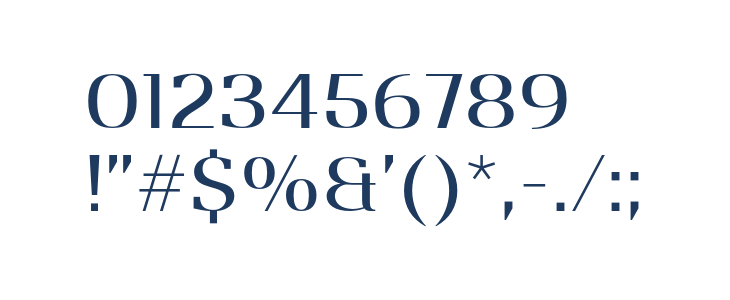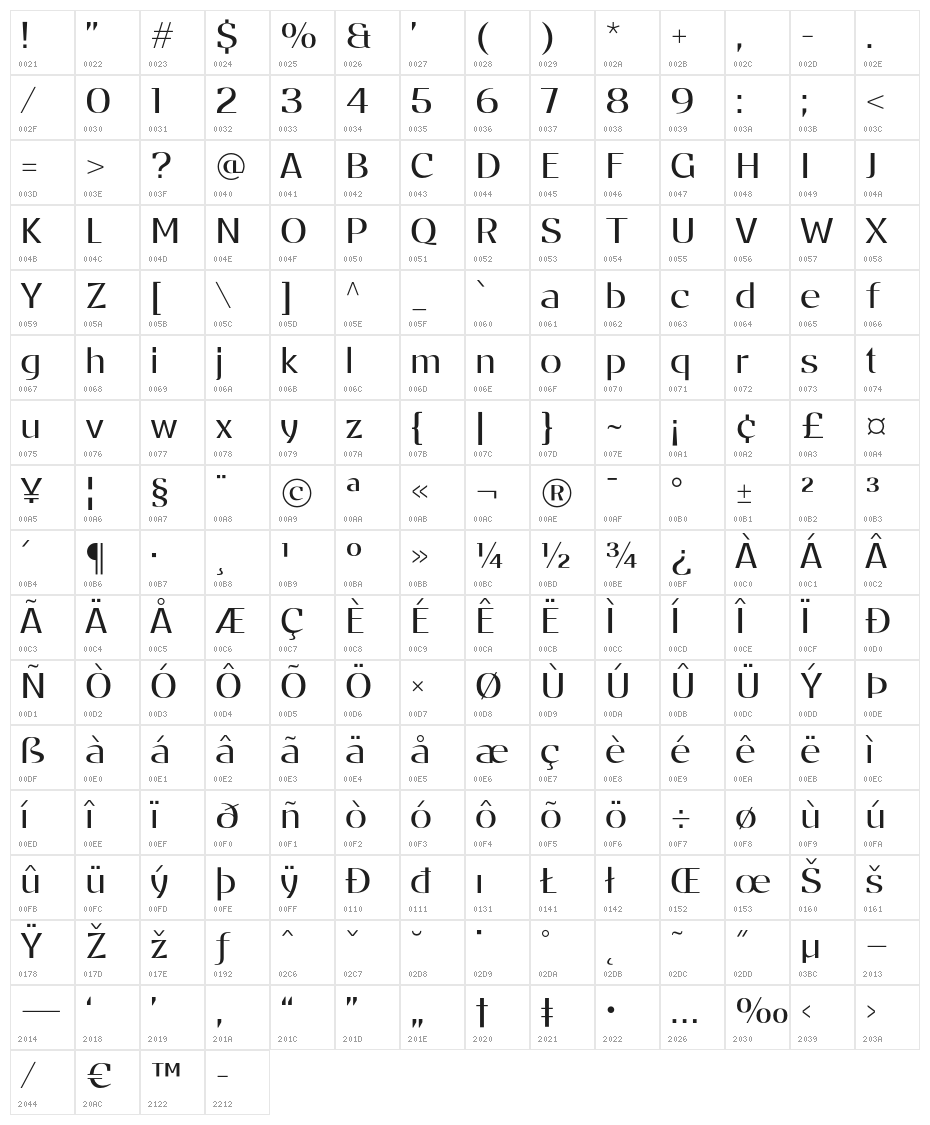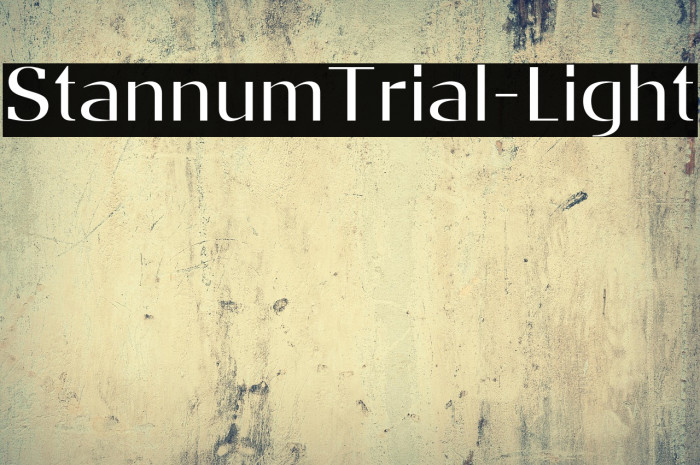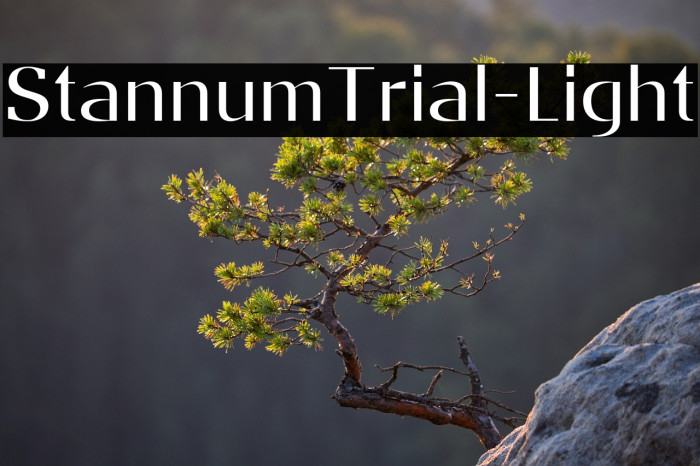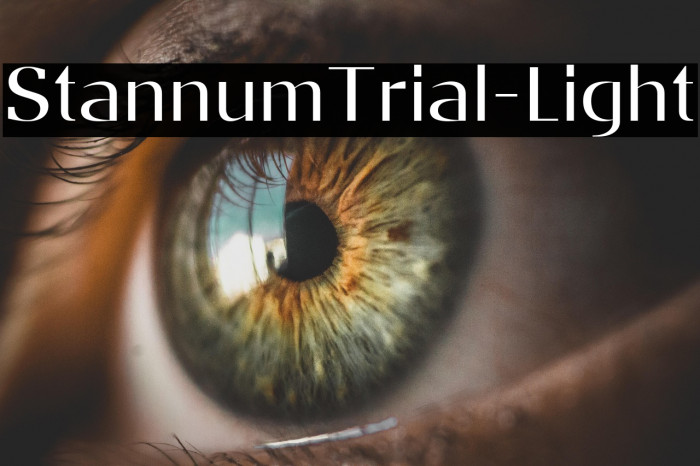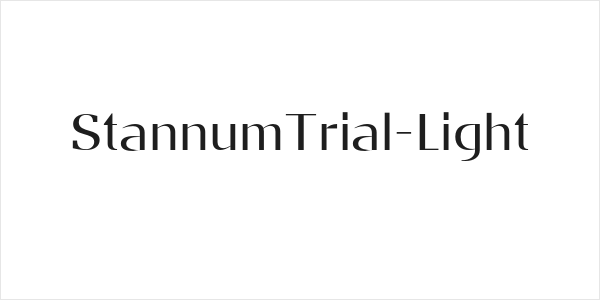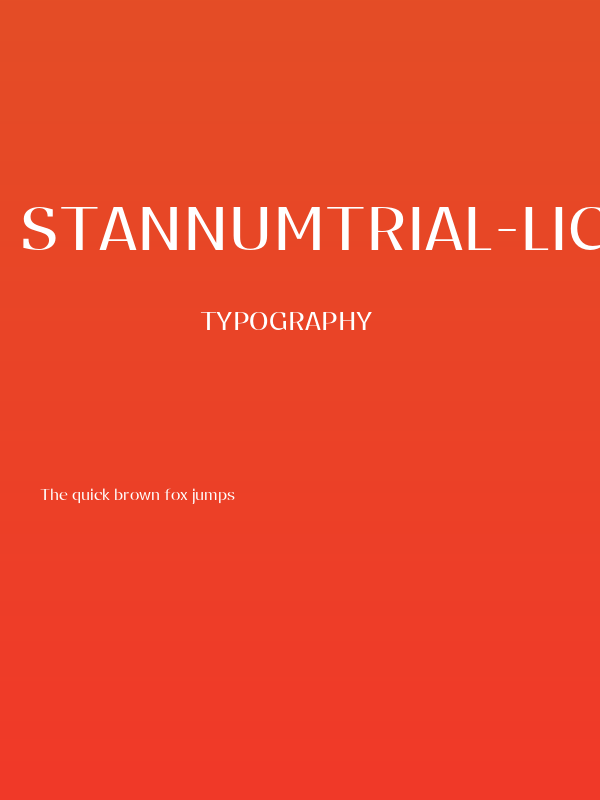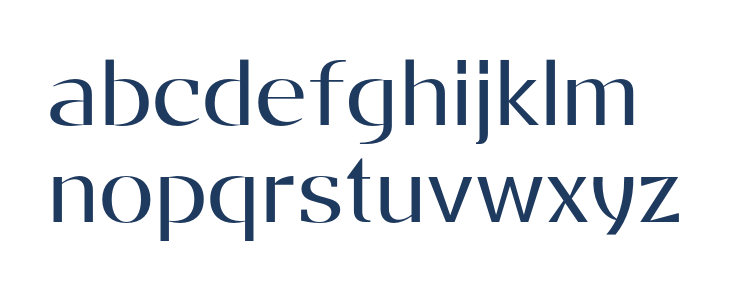
StannumTrial-Light Font
StannumTrial-Light Description
This font presents a modern and elegant design with clean lines and a sophisticated appearance. The characters are well-proportioned, offering a harmonious balance between the thick and thin strokes. The uppercase letters exhibit a strong presence, while the lowercase letters maintain readability with their smooth curves. The numerals are distinct and clear, making them suitable for various applications. Special characters are designed with attention to detail, ensuring consistency throughout the typeface. This font's overall aesthetic is both contemporary and versatile, making it suitable for a wide range of design projects.